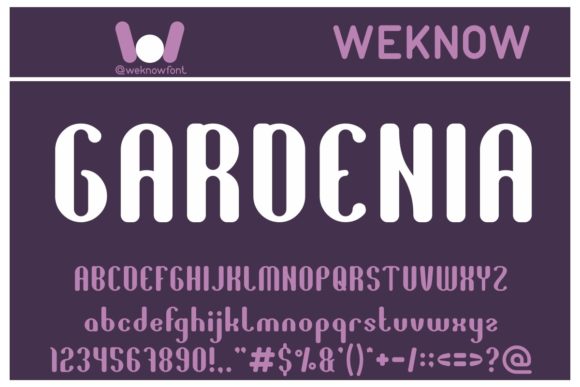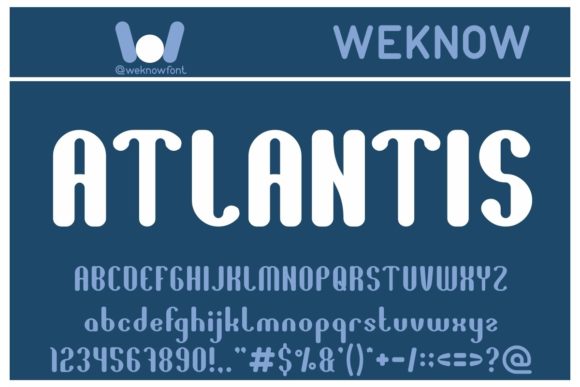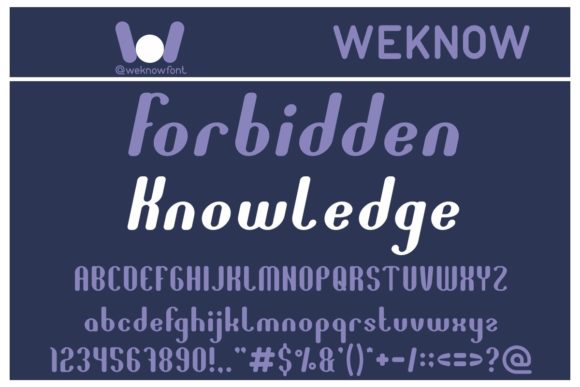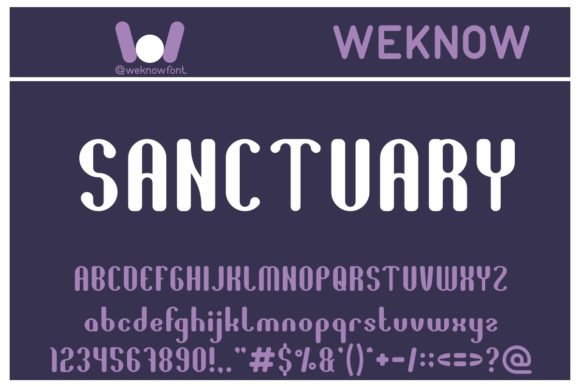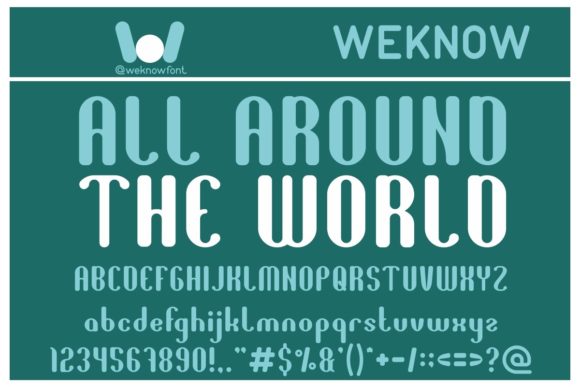
The Ultimate Guide to All Around the World Font
I’ll never forget the time I was working on a project for a client who wanted a poster that screamed “fun” and “adventure.” I had all the graphics and images ready, but I was stuck on finding the perfect font. That’s when I stumbled upon All Around the World, a cool, techno-looking, and fun display font that instantly elevated my design. In this article, I’ll share my experience with this amazing font, its features, and how to make the most of it in your designs.
So, what makes All Around the World font so special? Let’s dive into the good stuff and a few quirks I’ve discovered.
• ✨ Unique and Fun Design: This font has a distinct techno look that’s perfect for designs that need a playful touch.
• ✅ High Versatility: It works amazingly well on posters, flyers, and prints, making it a great addition to any designer’s toolkit.
• 💡 Endless Possibilities: With its wide range of glyphs and OpenType features, you can experiment with numerous styles and effects.
While All Around the World is an excellent font, there are a few things to keep in mind:
• 🤔 Legibility at Small Sizes: Like many display fonts, it may not be the best choice for body text or small sizes due to its intricate design.
• ⚠️ Glyph Overload: With so many glyphs and alternates, it can be overwhelming to navigate through them all, especially for beginners.
The story behind All Around the World font is one of creativity and exploration. Designed with the modern designer in mind, it aims to bring a fresh and fun perspective to the world of typography. The designer, inspired by global cultures and technological advancements, crafted this font to be a versatile tool for creatives worldwide.
Q: What type of projects is All Around the World font best suited for?
A: It’s perfect for projects that require a fun, techno, and adventurous vibe, such as posters, flyers, and prints.
Q: Does All Around the World support OpenType features?
A: Yes, it does, offering a range of glyphs and stylistic alternates to enhance your designs.
Q: Is All Around the World font suitable for body text?
A: Due to its design, it’s more suited for headings and titles. For body text, consider using a font with better legibility at smaller sizes.